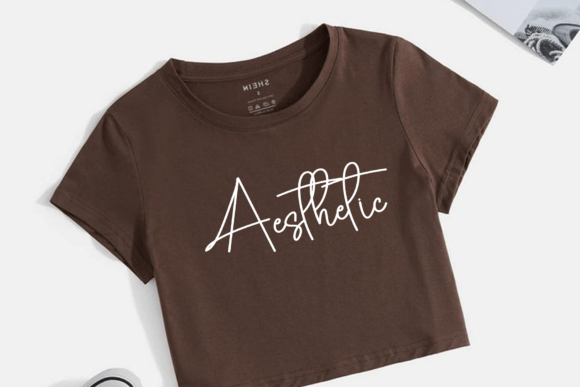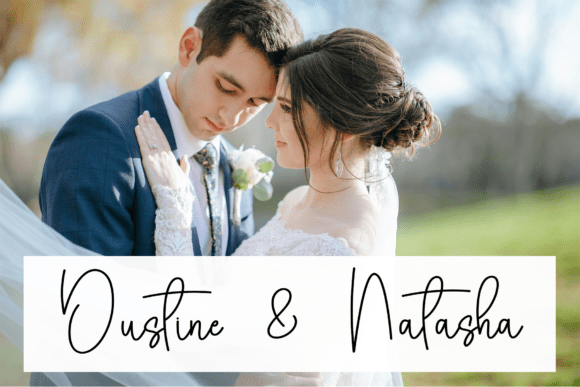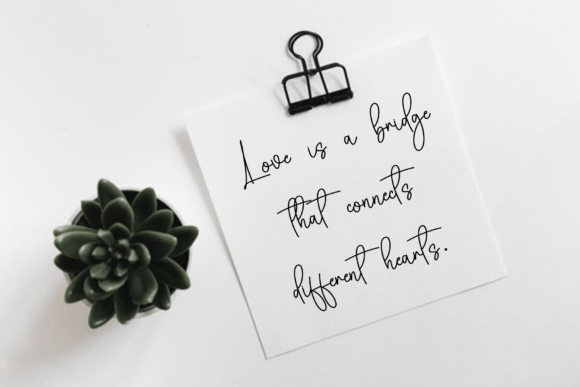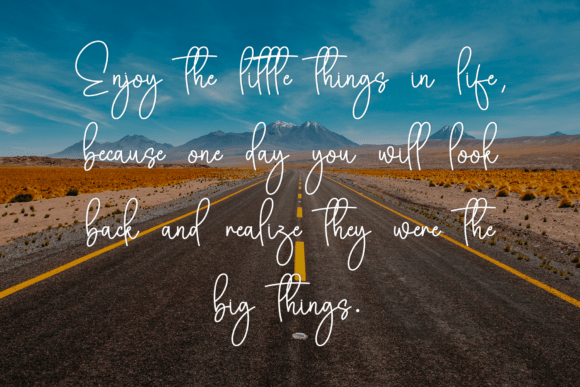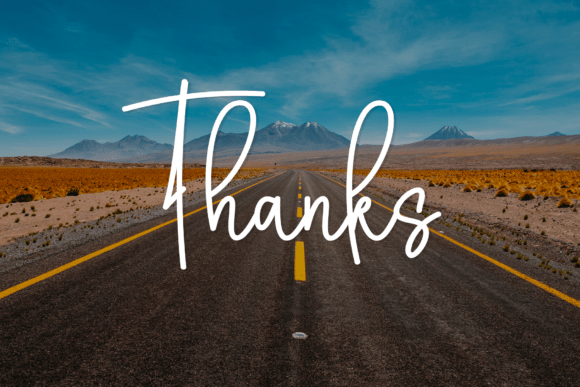
Uncovering the Perfect Font for Your Next Design Project
Have you ever been browsing through a beautifully designed wedding invitation or a high-end magazine, and suddenly, you’re captivated by the elegant handwriting on the page? For many designers, that’s the moment when the perfect font speaks to them. For me, it was the Gardening Font that stole my heart. Its fluid curves and modern sophistication instantly sparked my creativity, and I knew I had to share it with the design community.
Gardening Font is a beautifully crafted handwritten script font designed to evoke a sense of luxury and sophistication. Its versatility makes it a perfect choice for various design projects, from luxury wedding stationery to high-end editorial signatures. Whether you’re a seasoned designer or just starting out, Gardening Font is a valuable addition to your design toolkit.
With its unique blend of elegance and modernity, Gardening Font is sure to elevate your designs to the next level. In this article, we’ll delve into the world of Gardening Font and explore its features, uses, and benefits for designers.
Gardening Font Key Features
- Unique Characteristics: This font features a unique blend of organic and geometric elements, creating a distinctive and eye-catching visual style that is perfect for gardening and nature-themed designs.
- Kerning and Ligatures: The font includes advanced kerning and ligature pairs, ensuring that text sets up smoothly and professionally, even in complex layouts.
Gardening Font Review
Gardening Font is a beautiful, nature-inspired typeface that’s perfect for designers who love the outdoors. It’s a great choice for creating serene and peaceful environments, and it’s definitely a standout in the font market. ✨ The flowing curves and organic shapes evoke the feeling of leaves, flowers, and branches, making it a great fit for gardening, wellness, and eco-friendly brands.
Some of the things that work well about Gardening Font include:
- Its unique and distinctive style, which sets it apart from more generic fonts.
- The various weights and styles available, which make it easy to customize and use in different contexts.
- The high level of detail and craftsmanship that’s gone into creating this font.
However, there are a few limitations to be aware of:
- It may be a bit too ornate for some designs, where a more straightforward font is needed.
- The font may not be as versatile as some other options, and may not work as well in all contexts.
- The character set may not be as comprehensive as some other fonts, which could be a problem for designers who need to use non-English characters.
Overall, I think Gardening Font is a great choice for designers who want to create a unique and peaceful environment. While it may have some limitations, its beauty and craftsmanship make it a standout in the font market. ✨
Some popular use cases for Gardening Font include:
- Designing garden-themed invitations and party decorations
- Creating labels and signage for plant nurseries and gardening stores
- Developing branding and marketing materials for gardening businesses
Is the Gardening Font suitable for digital use?
Yes, the Gardening Font is designed to be highly legible in digital formats. It’s optimized for use on screens and can be used for a variety of digital applications, including web design, mobile apps, and digital signage. The font is available in TrueType and OpenType formats, making it compatible with most operating systems and software.